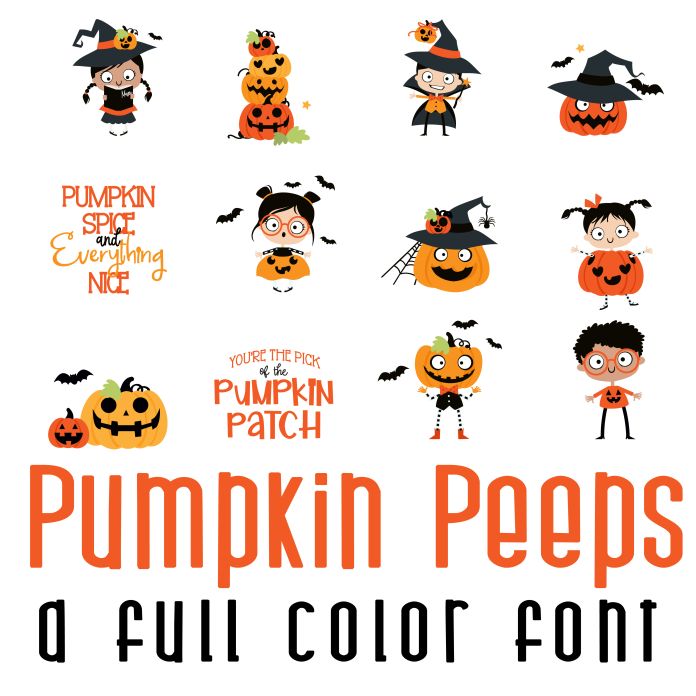
This fun full color font features 26 pumpkin themed kids perfect for the holiday, gifts, cards, crafts, decor, parties, classrooms, planner stickers, scrap book pages and more!